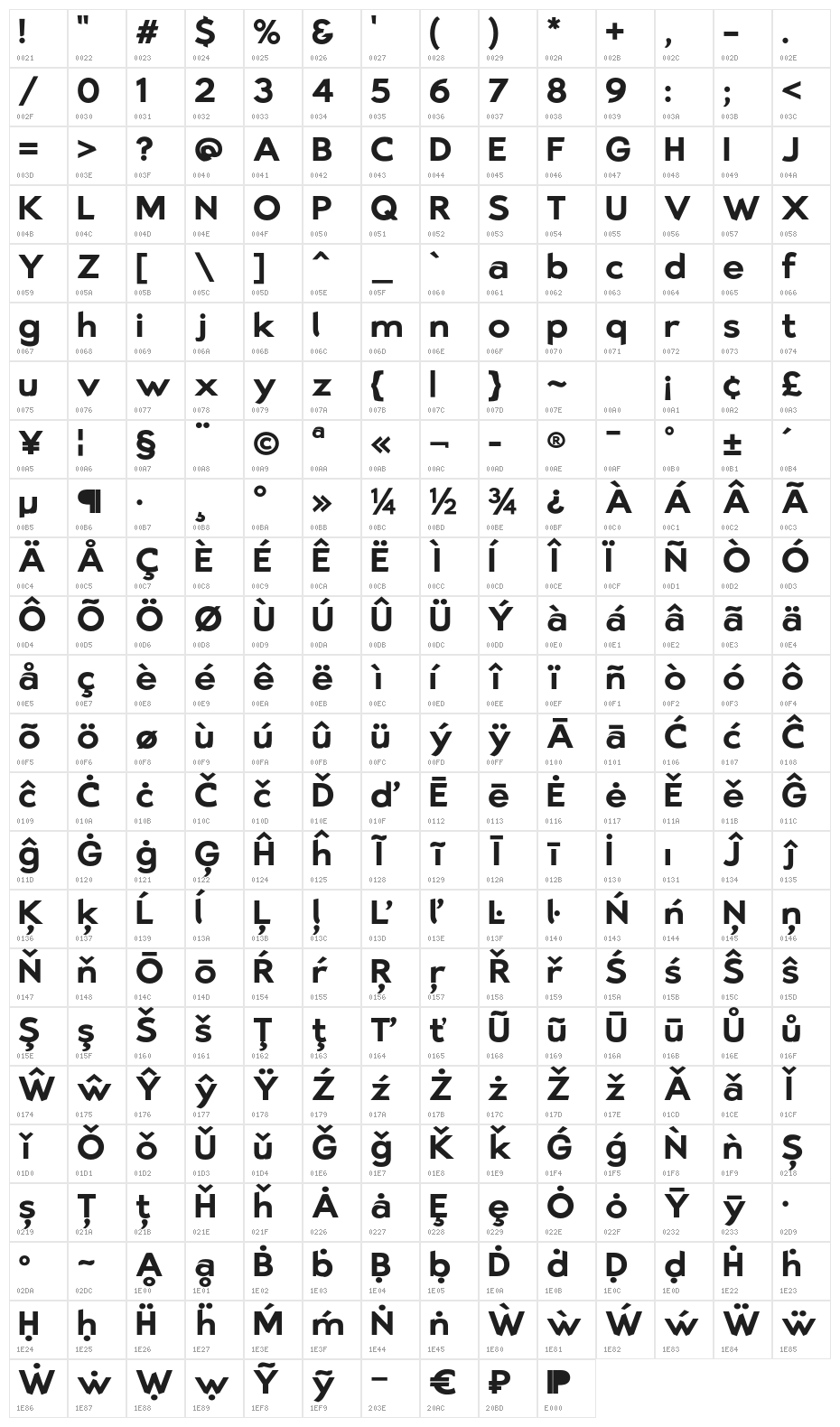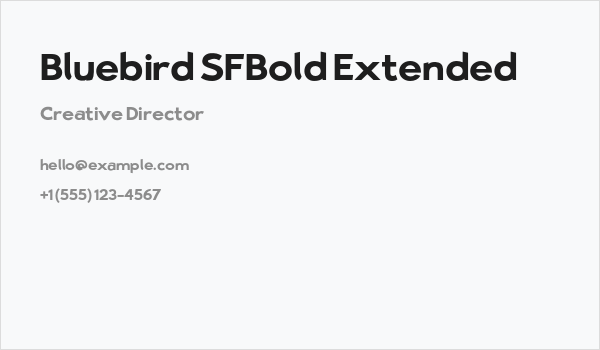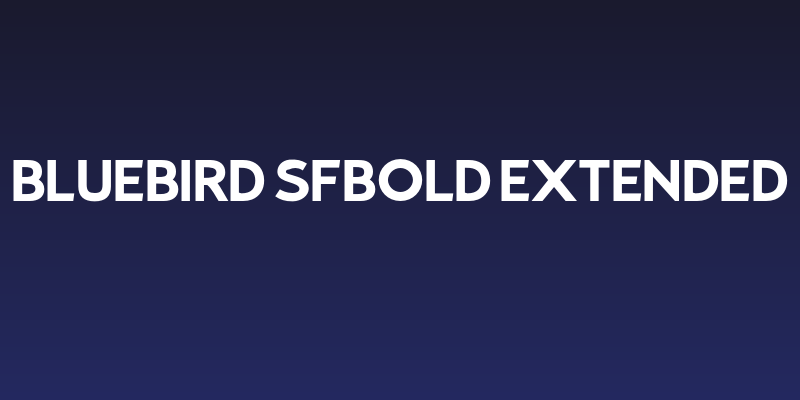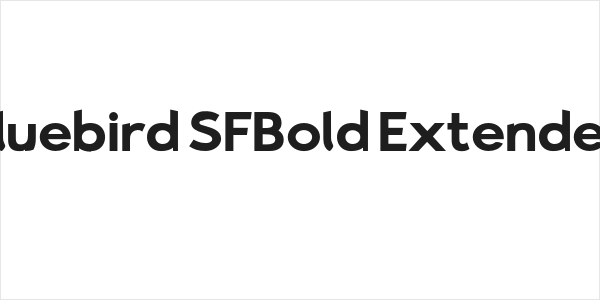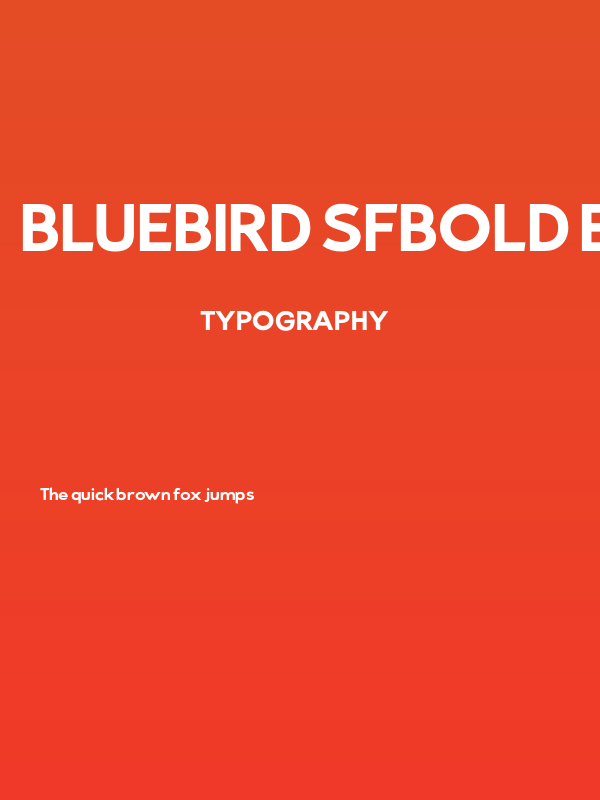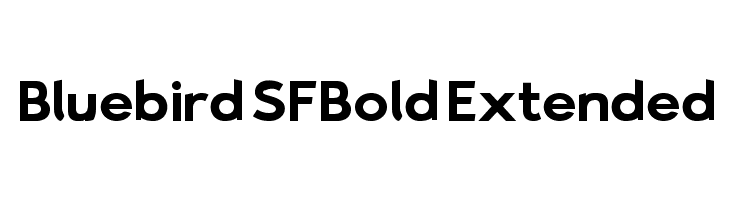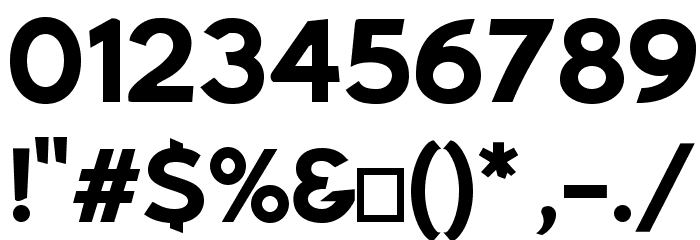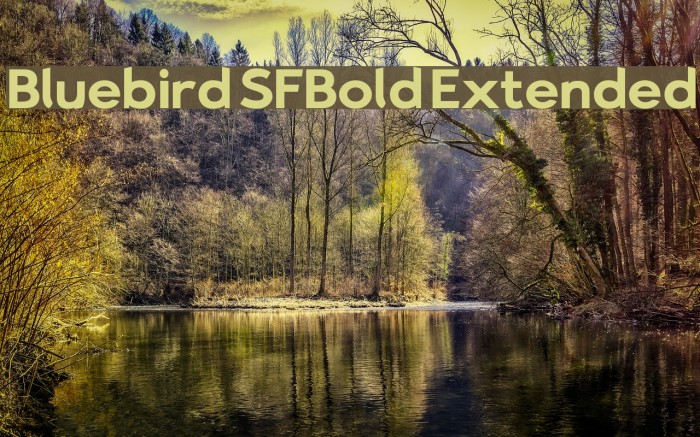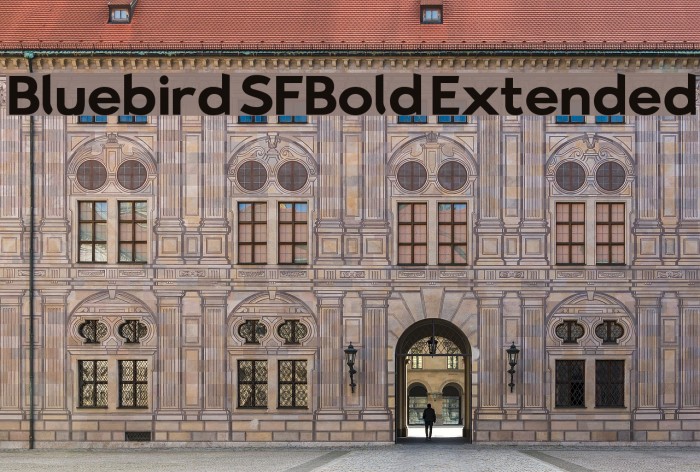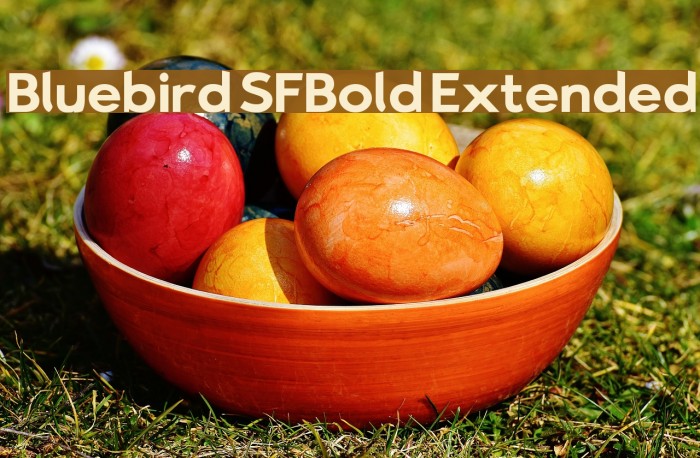
Bluebird SFBold Extended Font
Bluebird SFBold Extended Description
This font features a bold and extended style, characterized by its strong, impactful presence. The uppercase letters are uniformly large and assertive, while the lowercase letters maintain a consistent weight, ensuring readability. The numerals are clear and distinct, matching the boldness of the alphabet. Special characters are well-defined, adding versatility to the font. The overall design is modern and clean, making it suitable for various applications where a strong visual impact is desired.
| Proposed Projects | Ideal for branding, headlines, posters, and any project requiring a strong visual presence. |